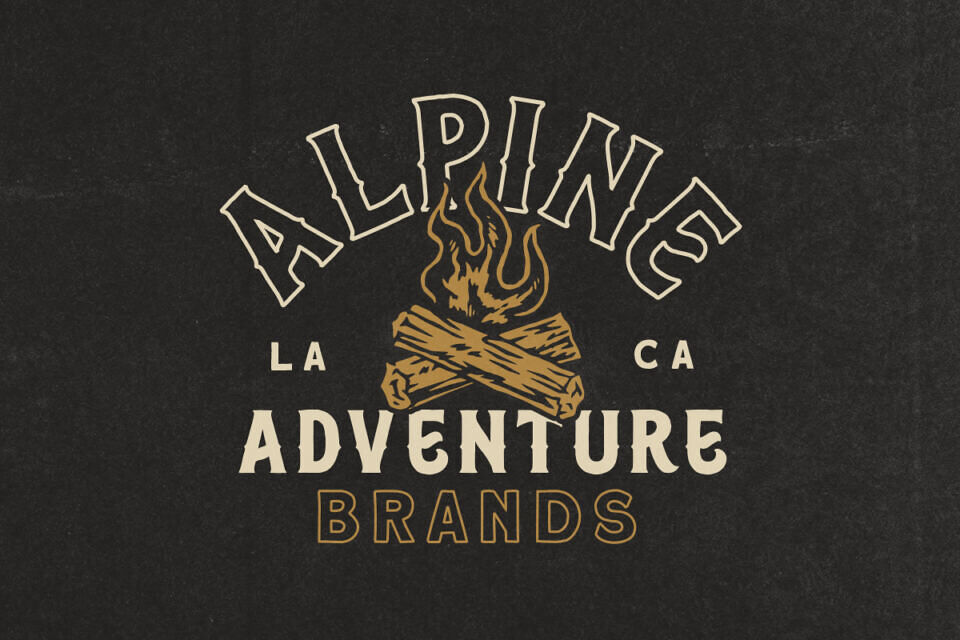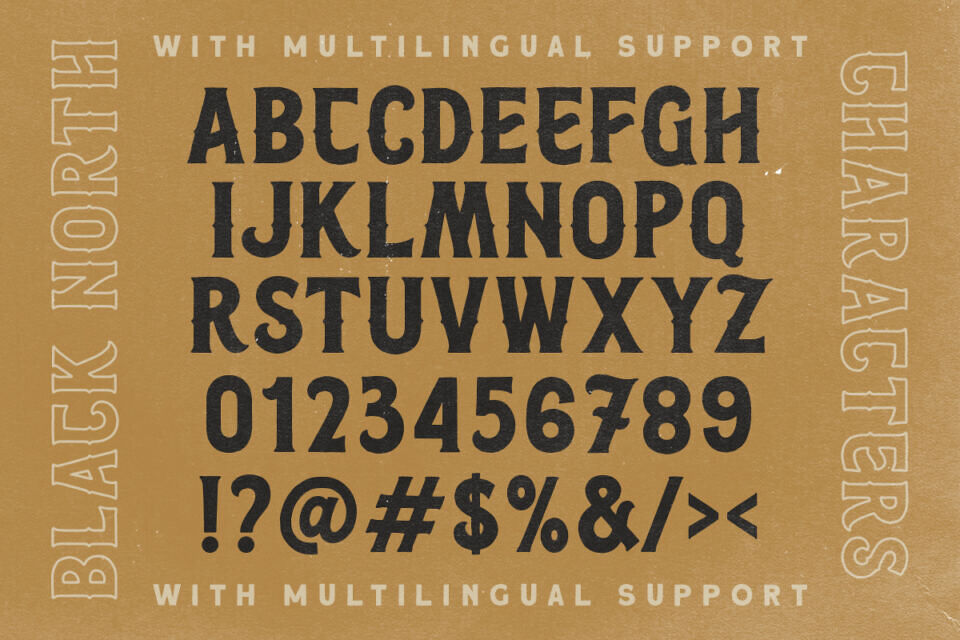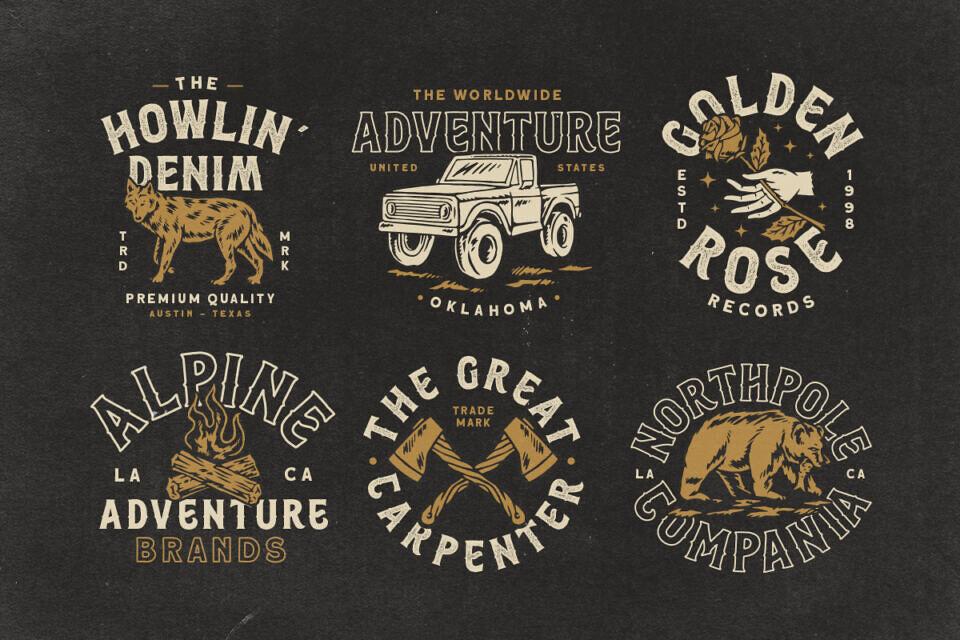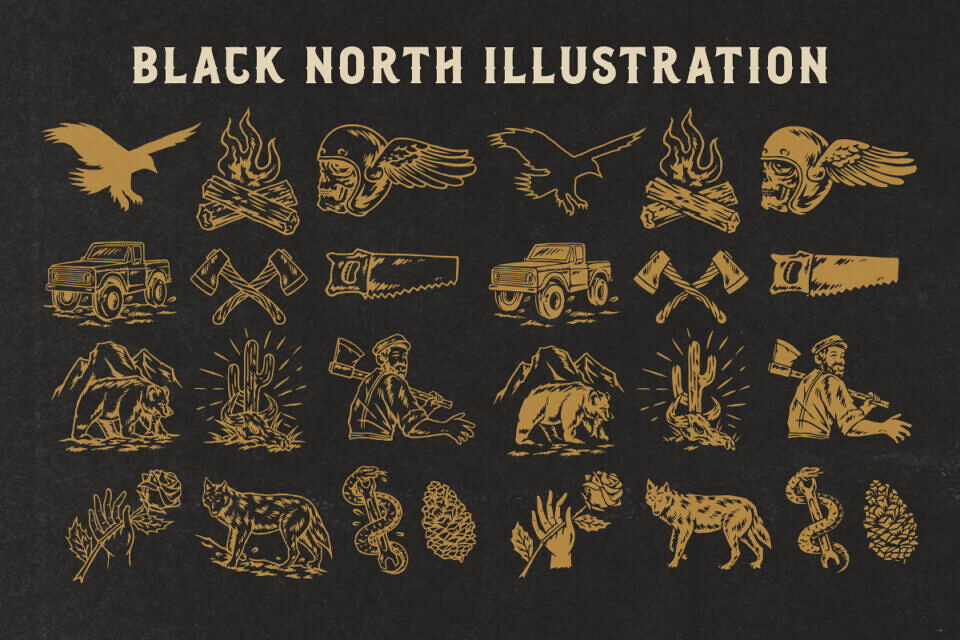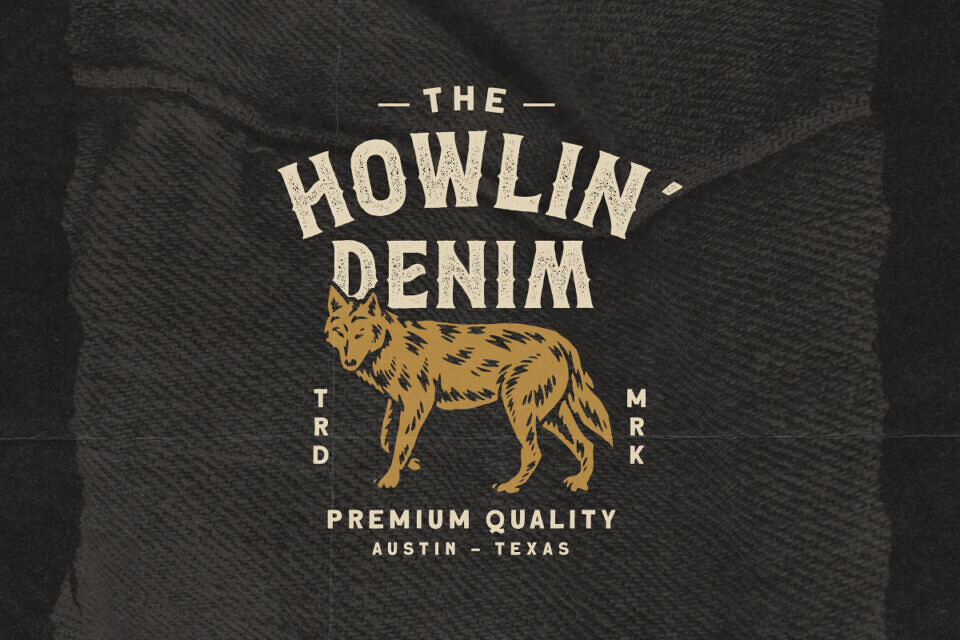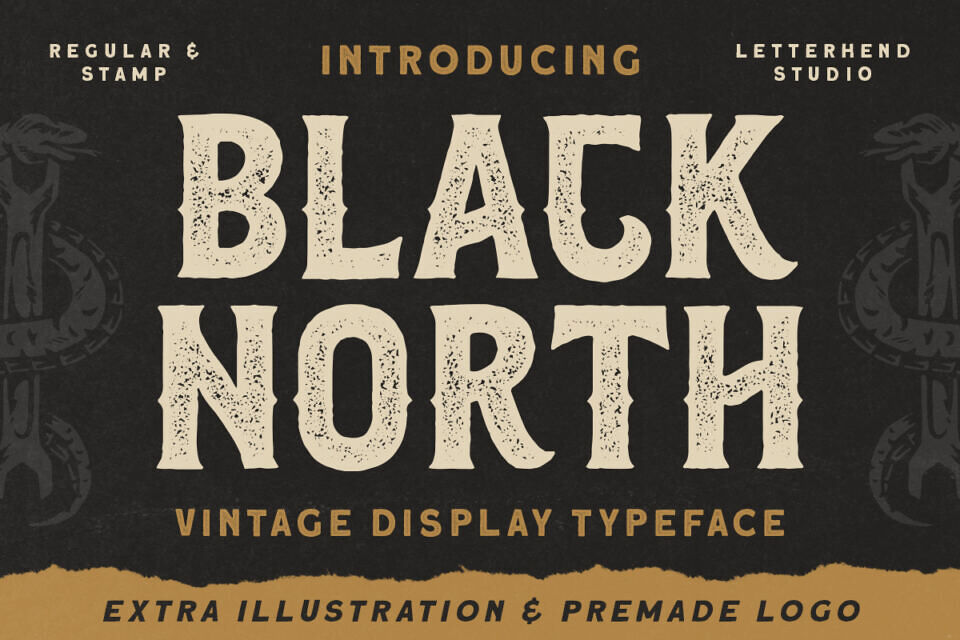
Black North Font
Black North is a vintage display typeface with the touch of nostalgic feel. The strong and bold looks make this font standout to be used as a title or a logo. It comes with many illustrations and premade logos!
This font perfectly made to be applied especially in logo, and the other various formal forms such as invitations, labels, magazines, books, greeting cards, packaging, fashion, make up, stationery, novels, labels or any type of advertising purpose.